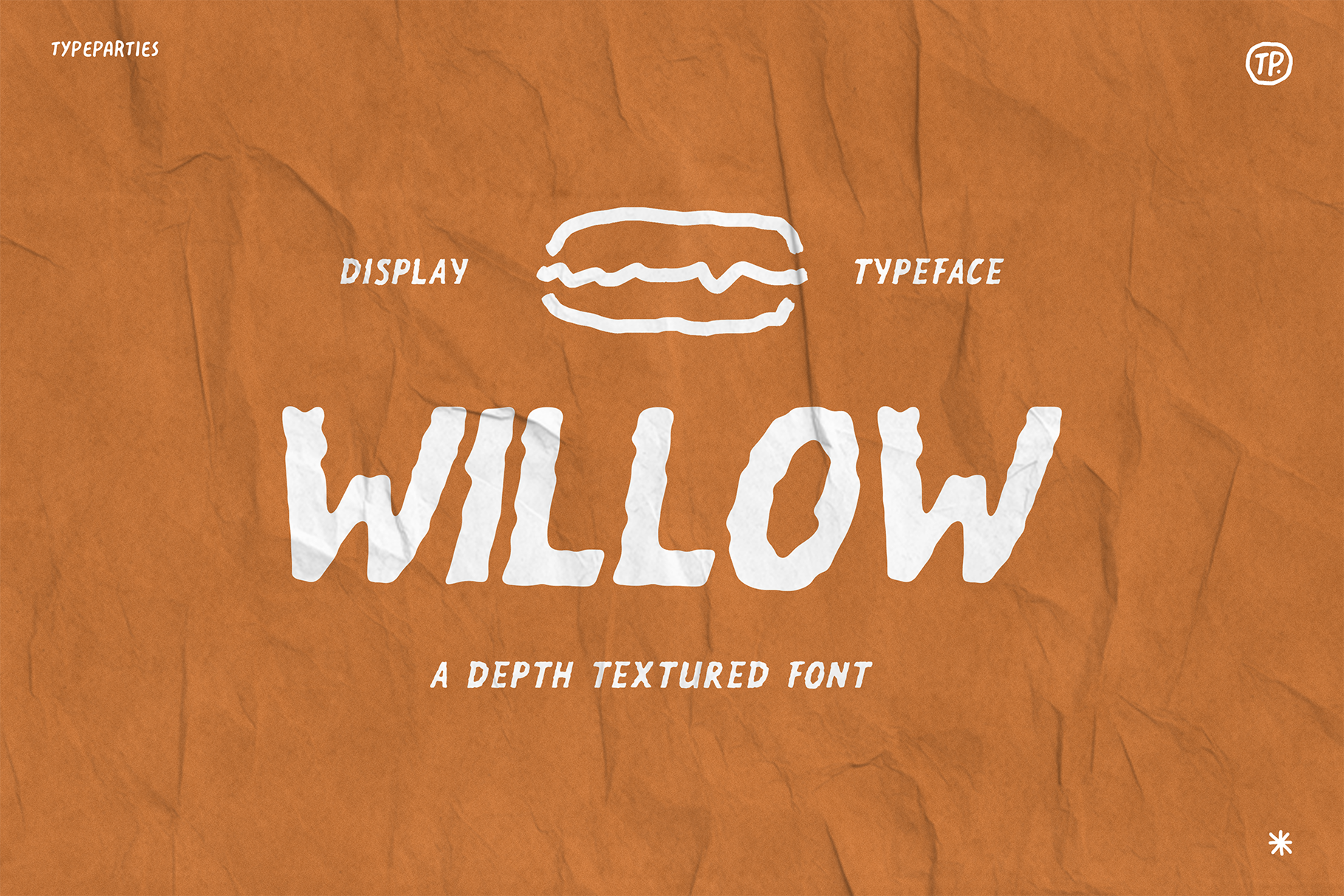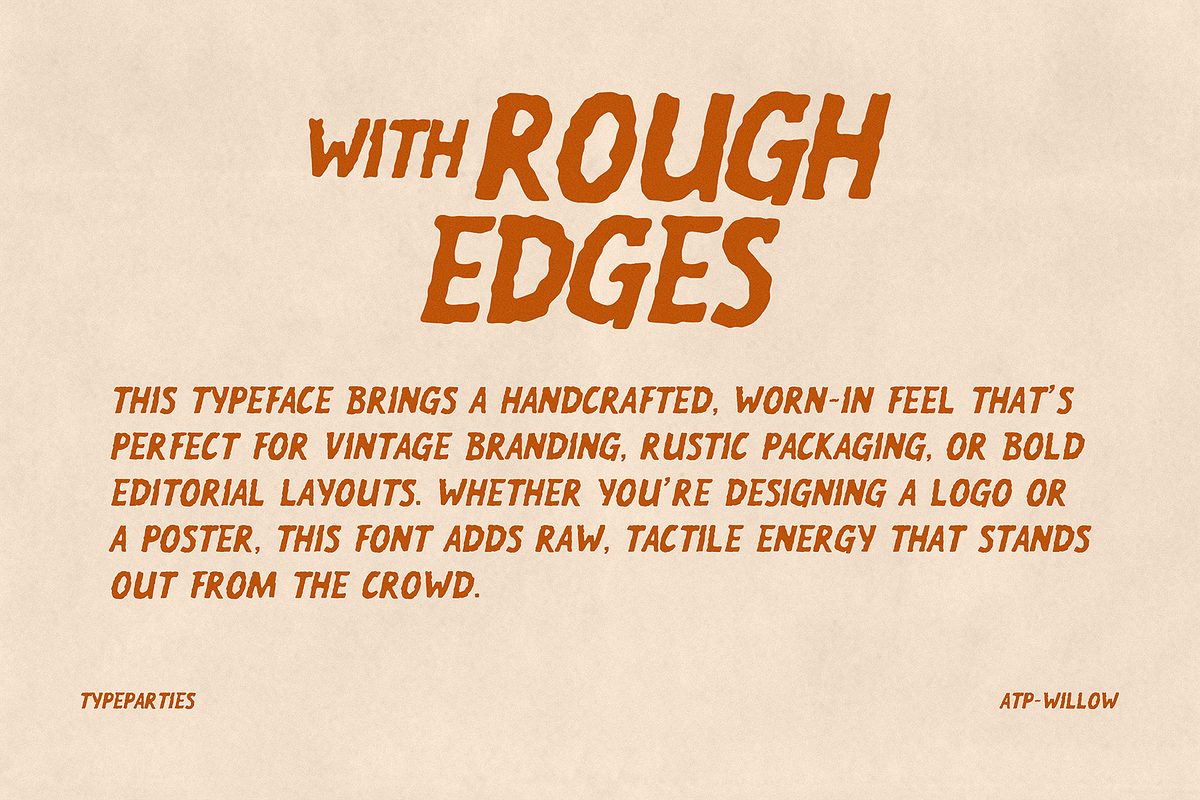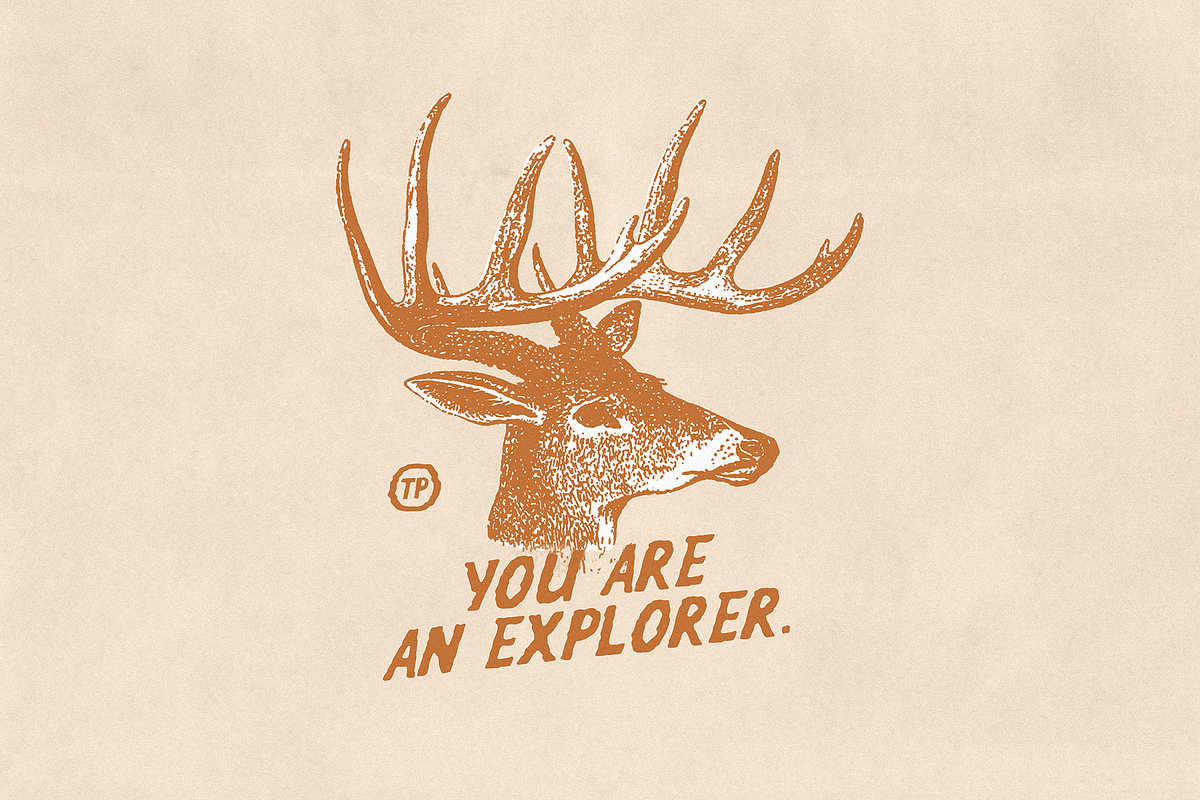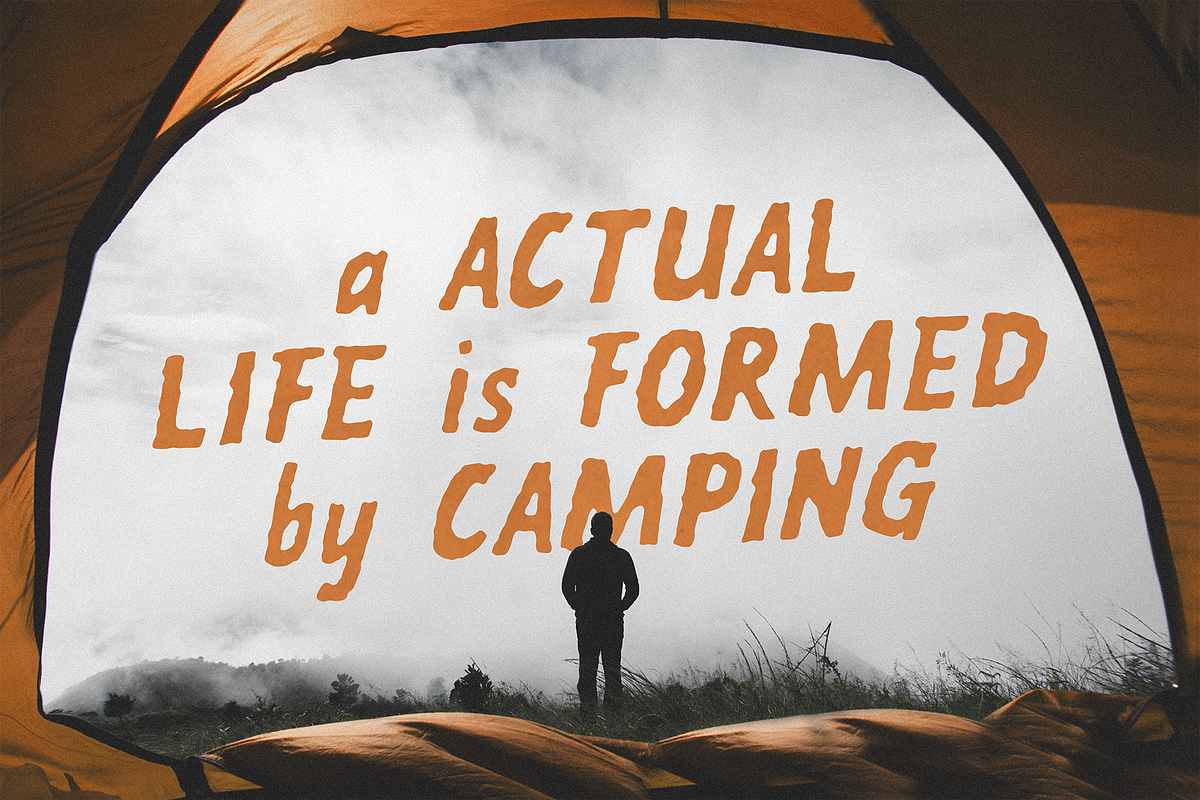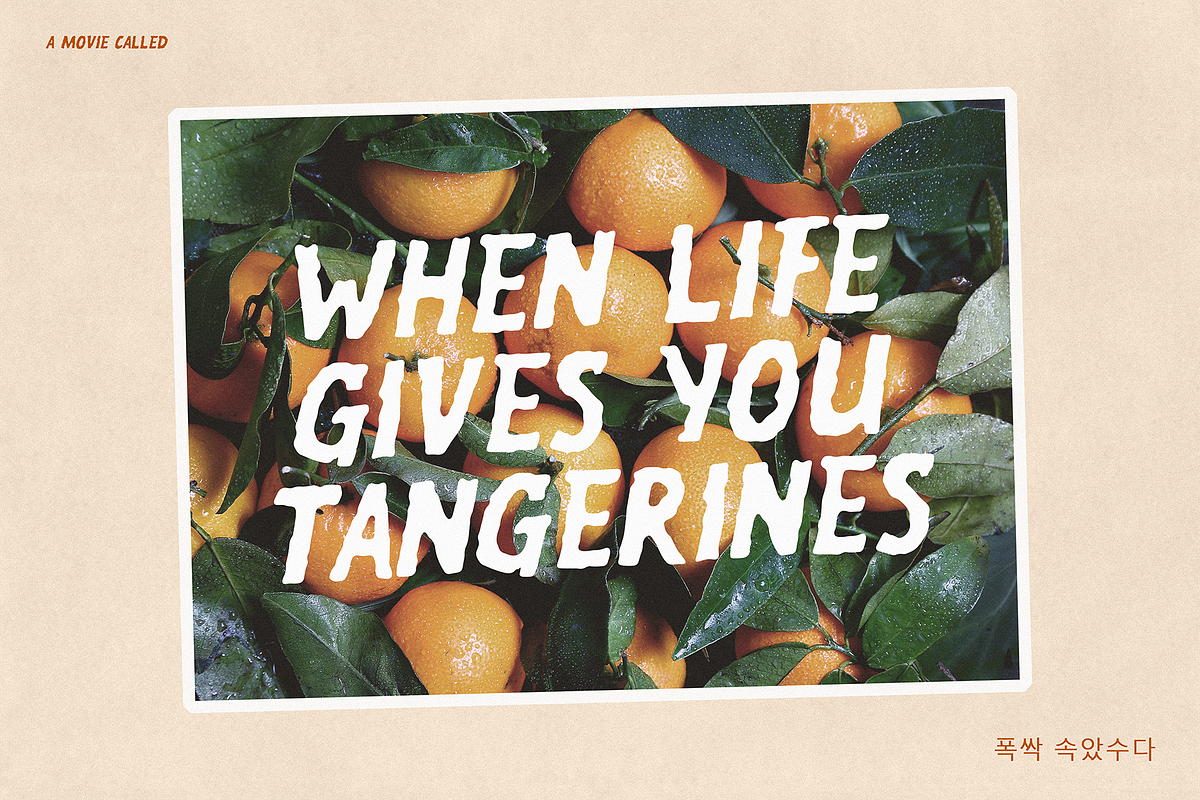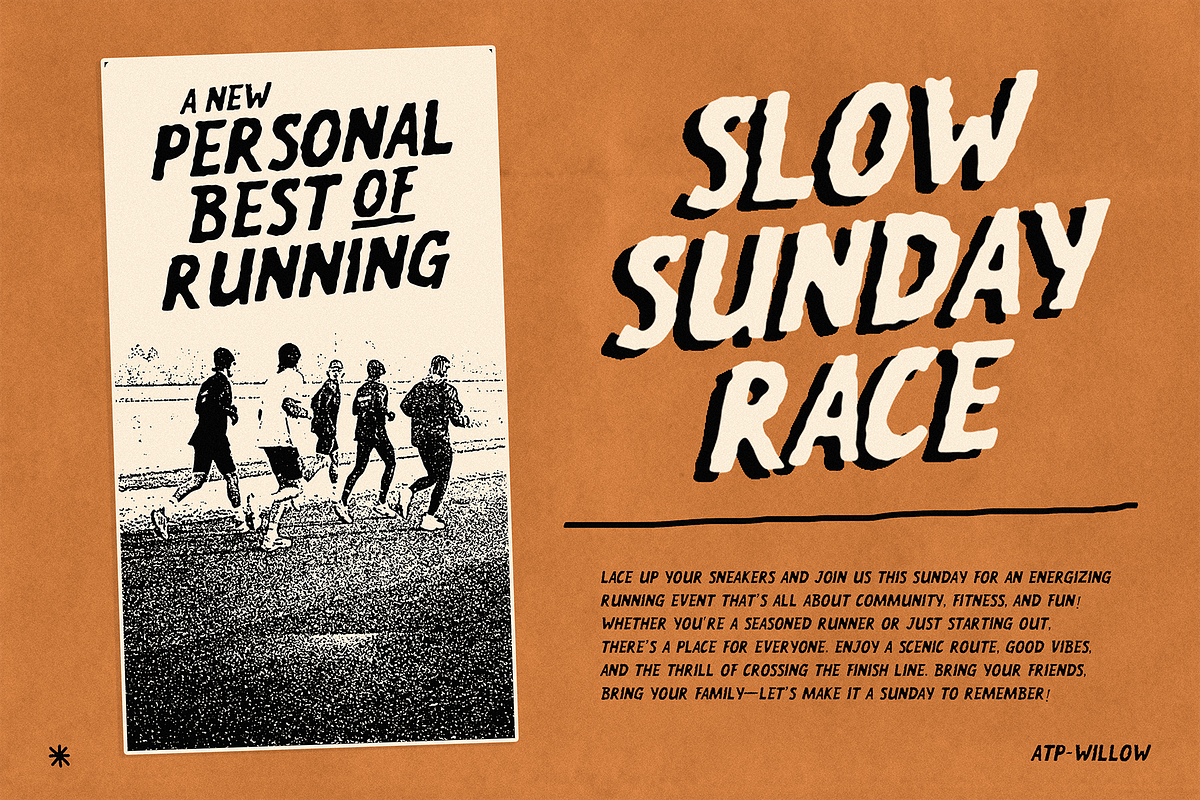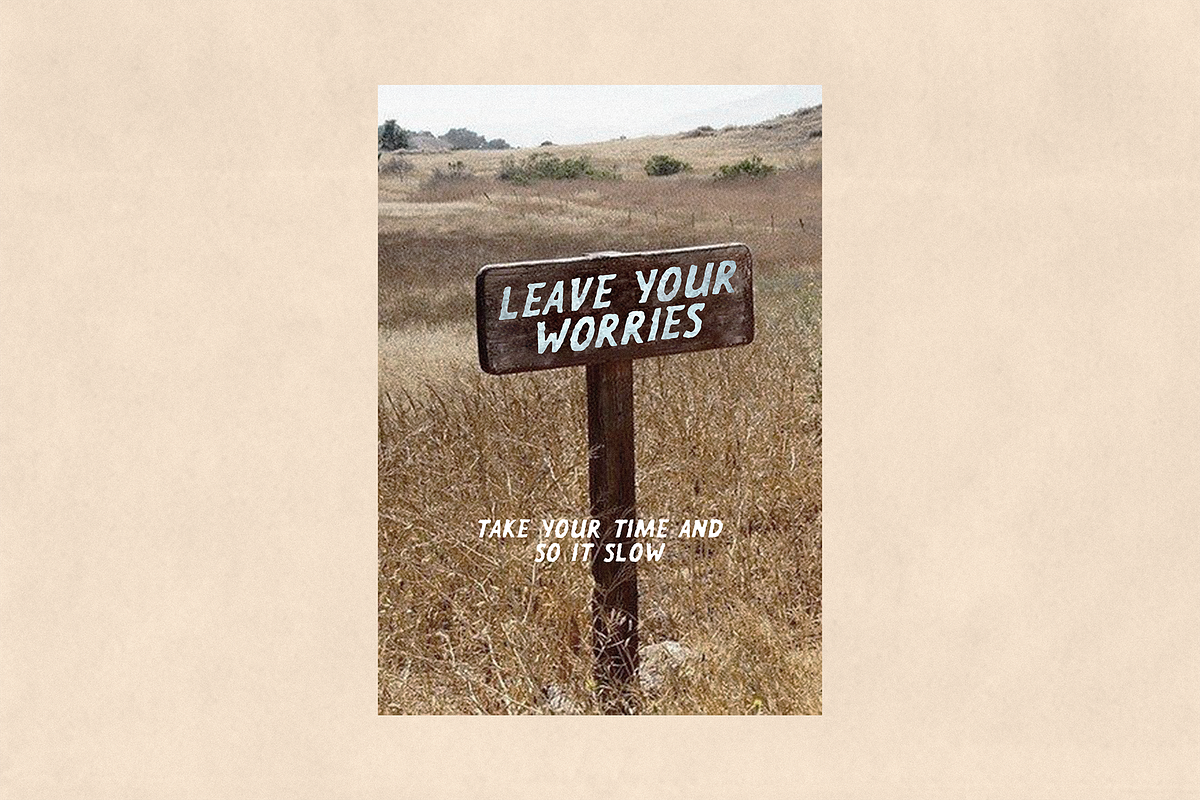
Willow Handwriting Font
Add character and depth to your designs with this textured font, where every letter tells a story. With rough edges, grainy details, and organic imperfections, this typeface brings a handcrafted, worn-in feel that’s perfect for vintage branding, rustic packaging, or bold editorial layouts. Whether you’re designing a logo or a poster, this font adds raw, tactile energy that stands out from the crowd.